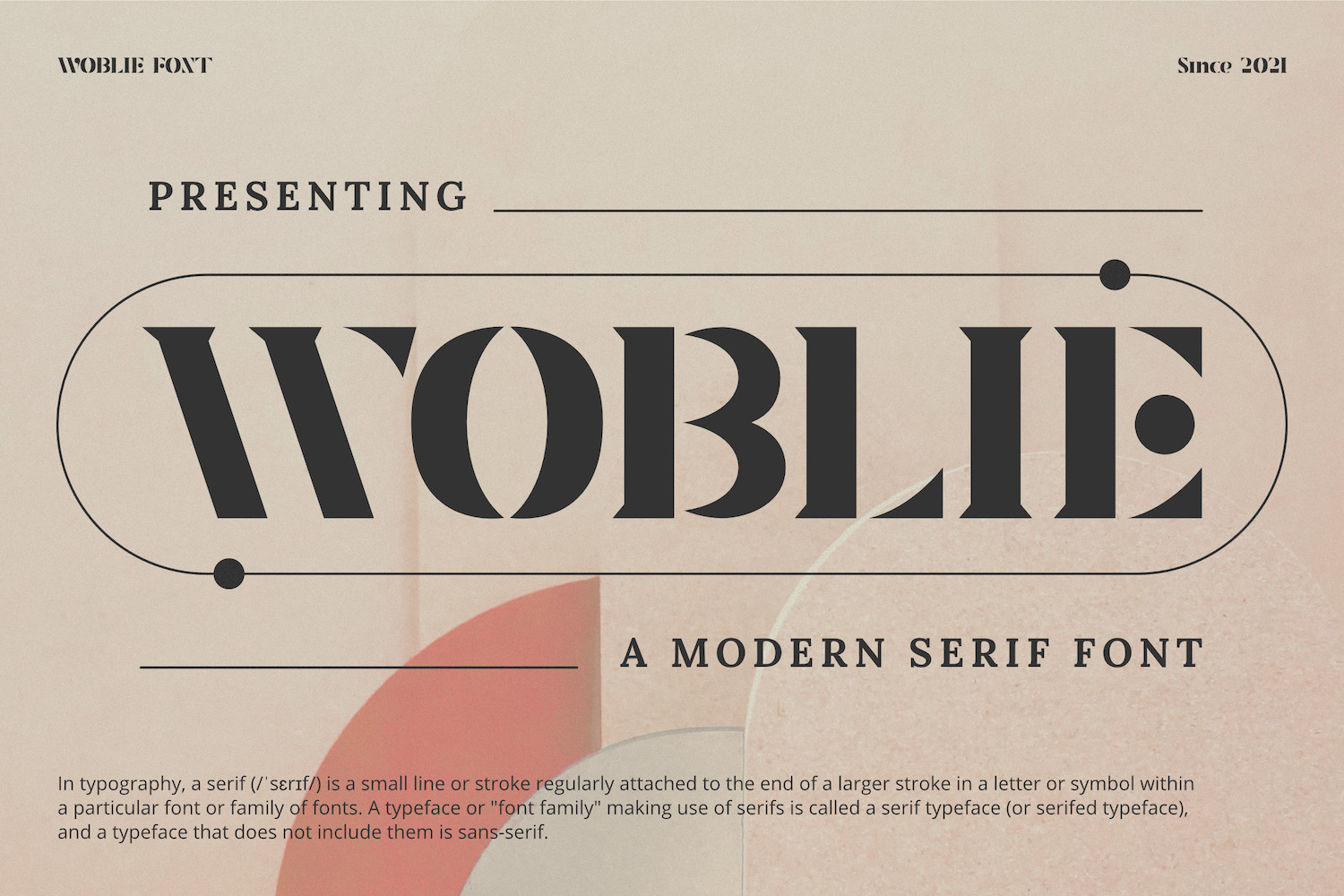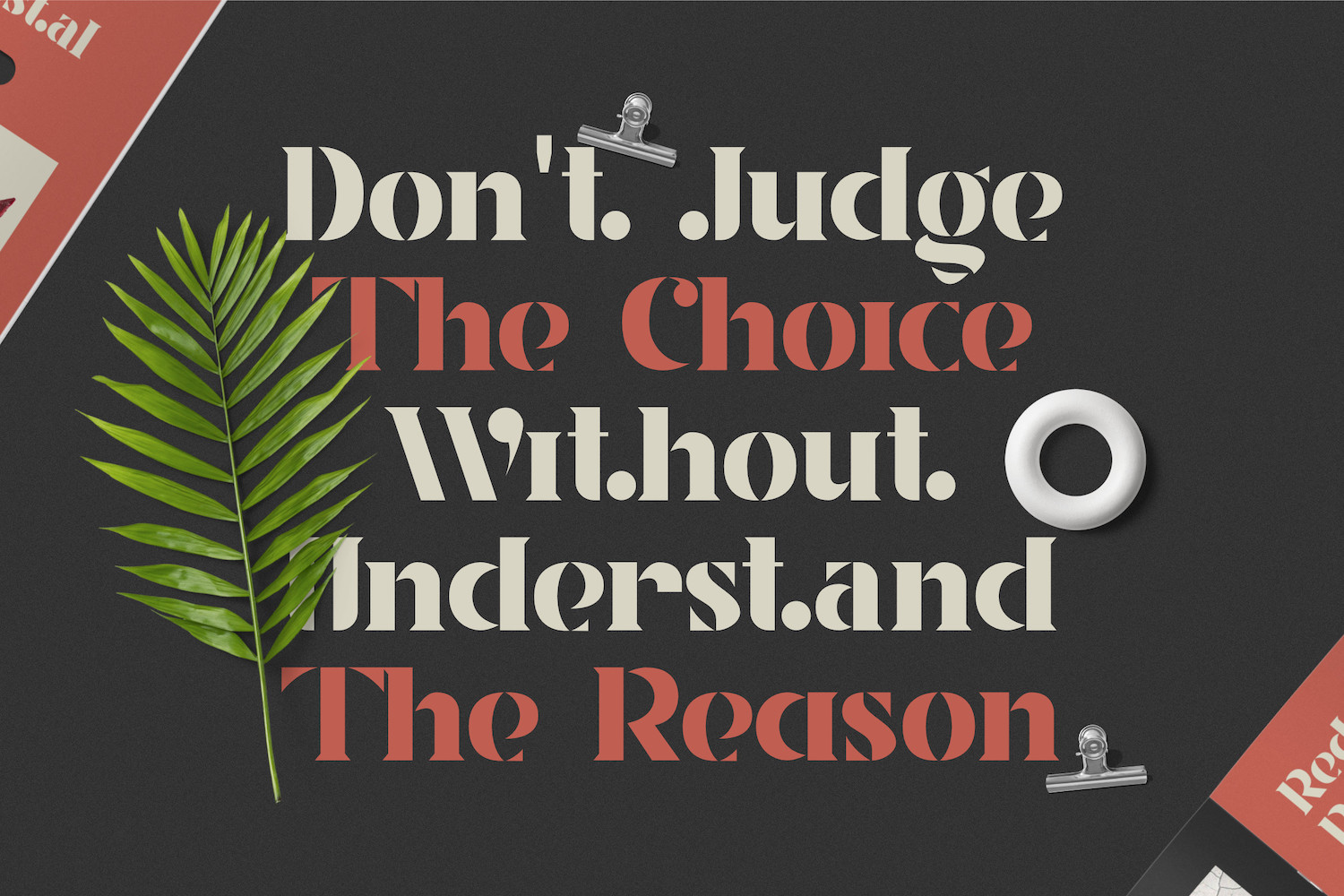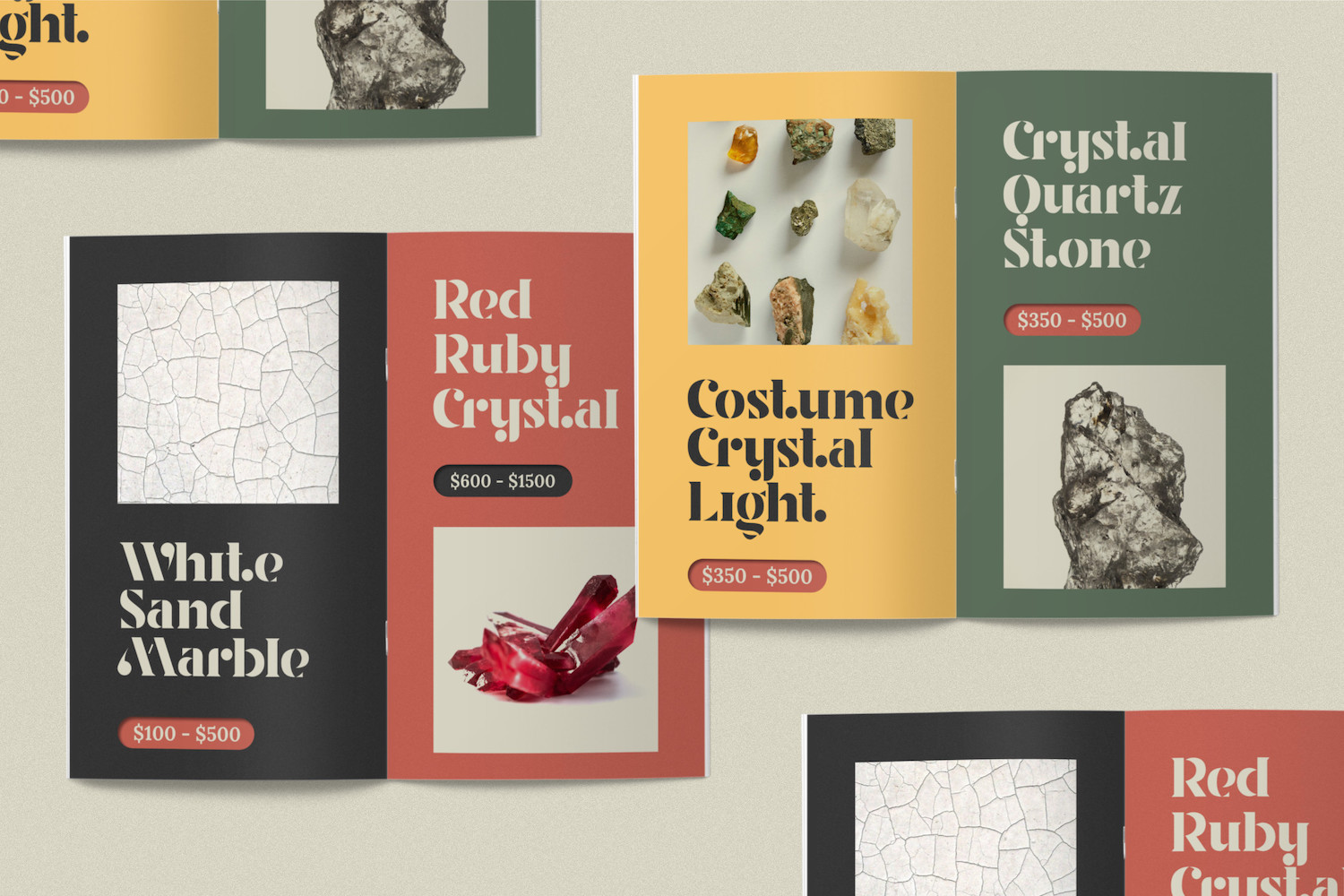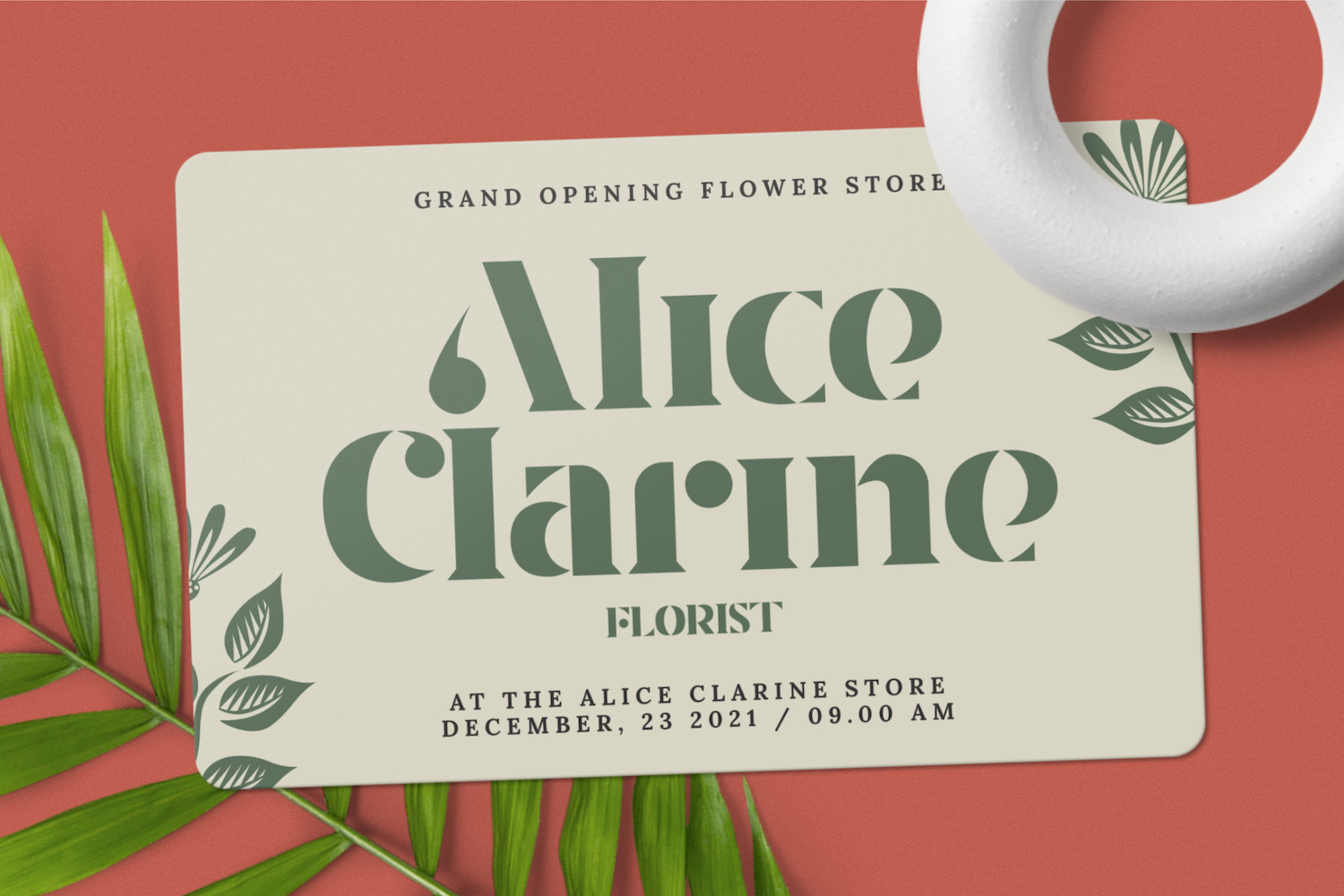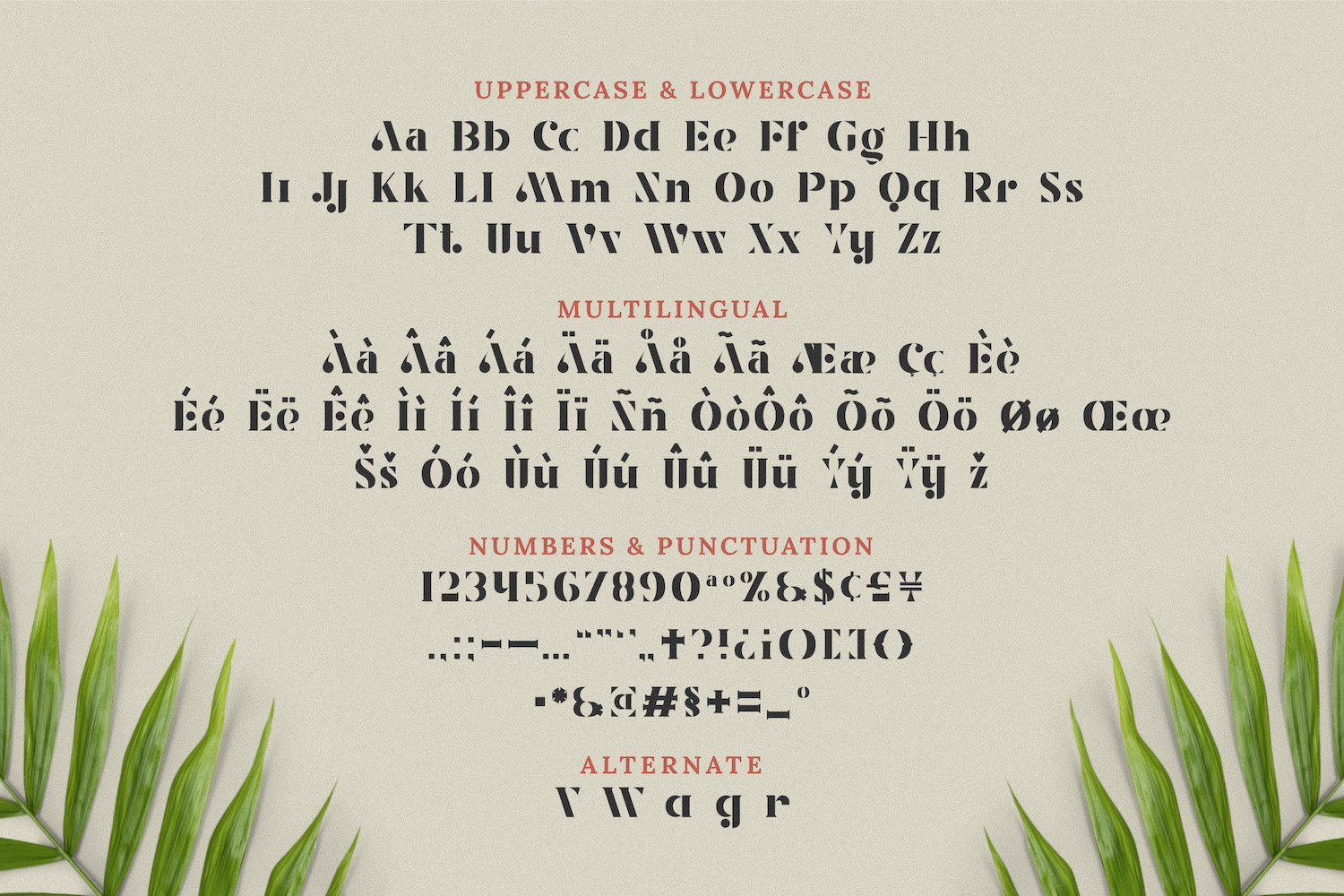
Woblie is a stylish modern serif font that blends classic elegance with innovative, creative curves. Each letter is thoughtfully designed with high contrast strokes, unique alternate shapes, and bold personality, making Woblie perfect for branding, editorial headlines, and luxury packaging. Its soft curves and strong serifs give it a distinct visual appeal that is both timeless and contemporary.
With multilingual support, alternate characters, and full punctuation, Woblie provides a versatile typographic toolkit for any creative professional. Whether you’re designing a magazine spread, a logo, or a wedding invitation, Woblie will elevate your message with sophistication and flair.
Woblie